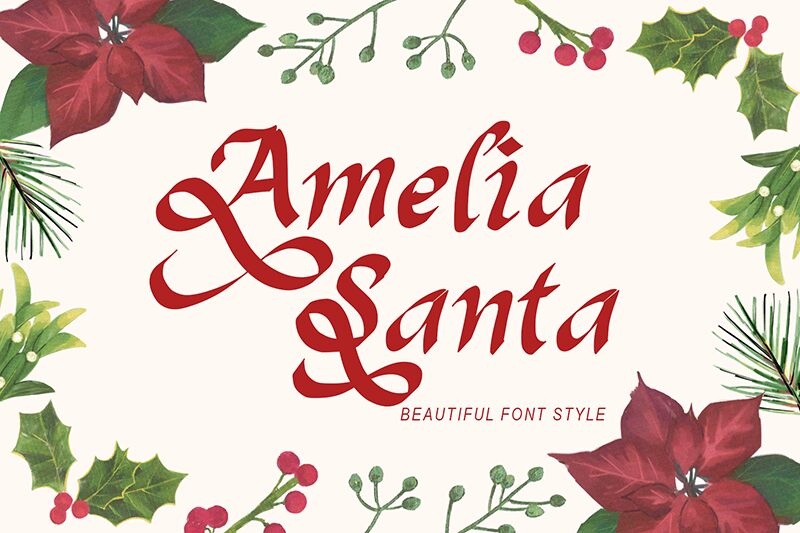
Amelia Santa font designed by Yoga Letter, is an expressive, decorative, and elegant font in a holiday style. This font is vintage-inspired, dynamic, sophisticated, flowing, italic, and ornamental with artistic touches. Festive and timeless, the font provides a unique, nostalgic, and delicate aesthetic.